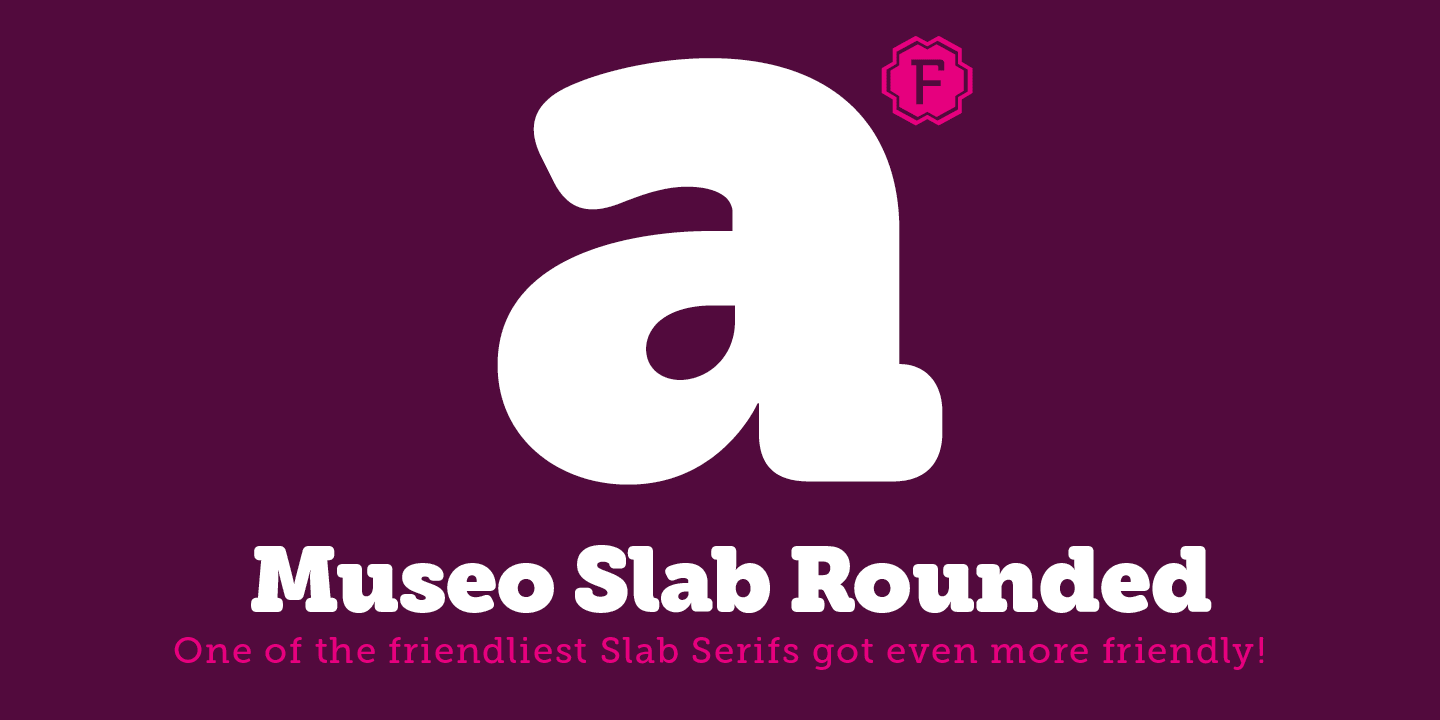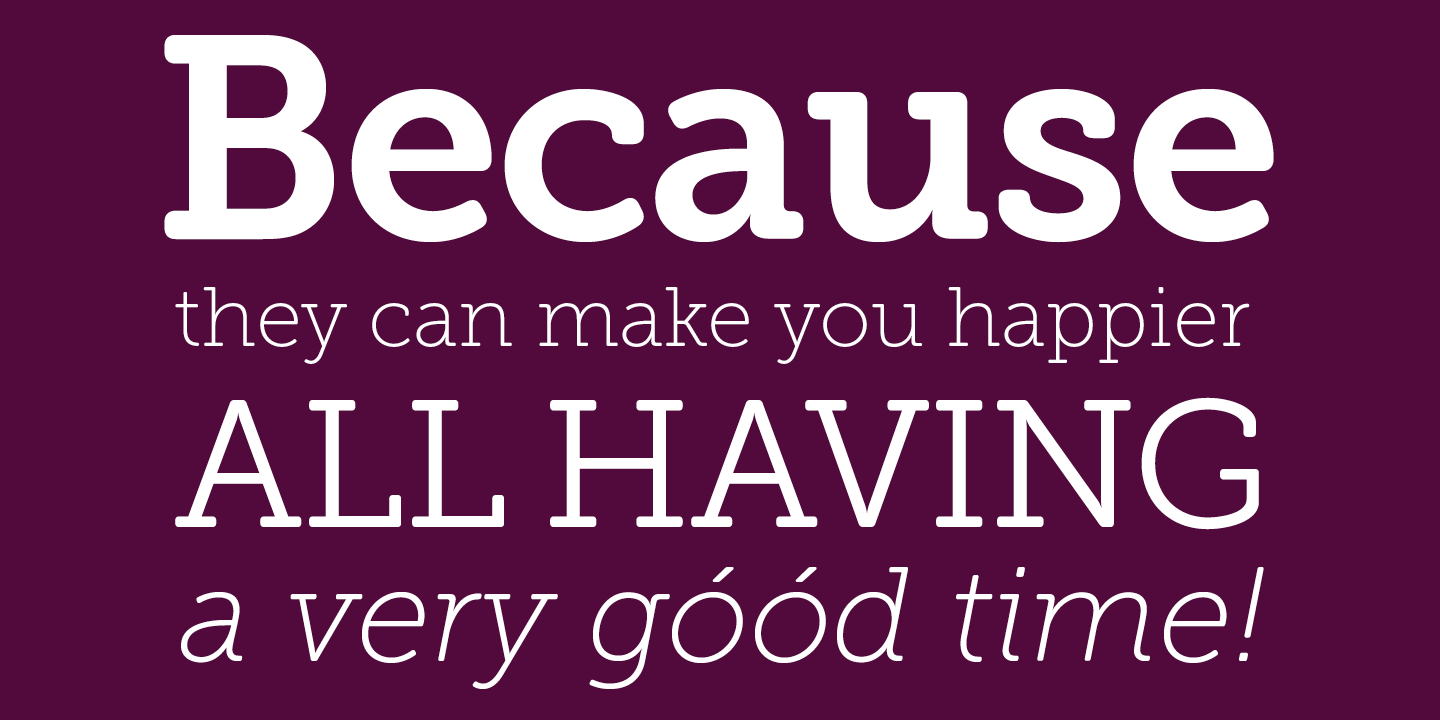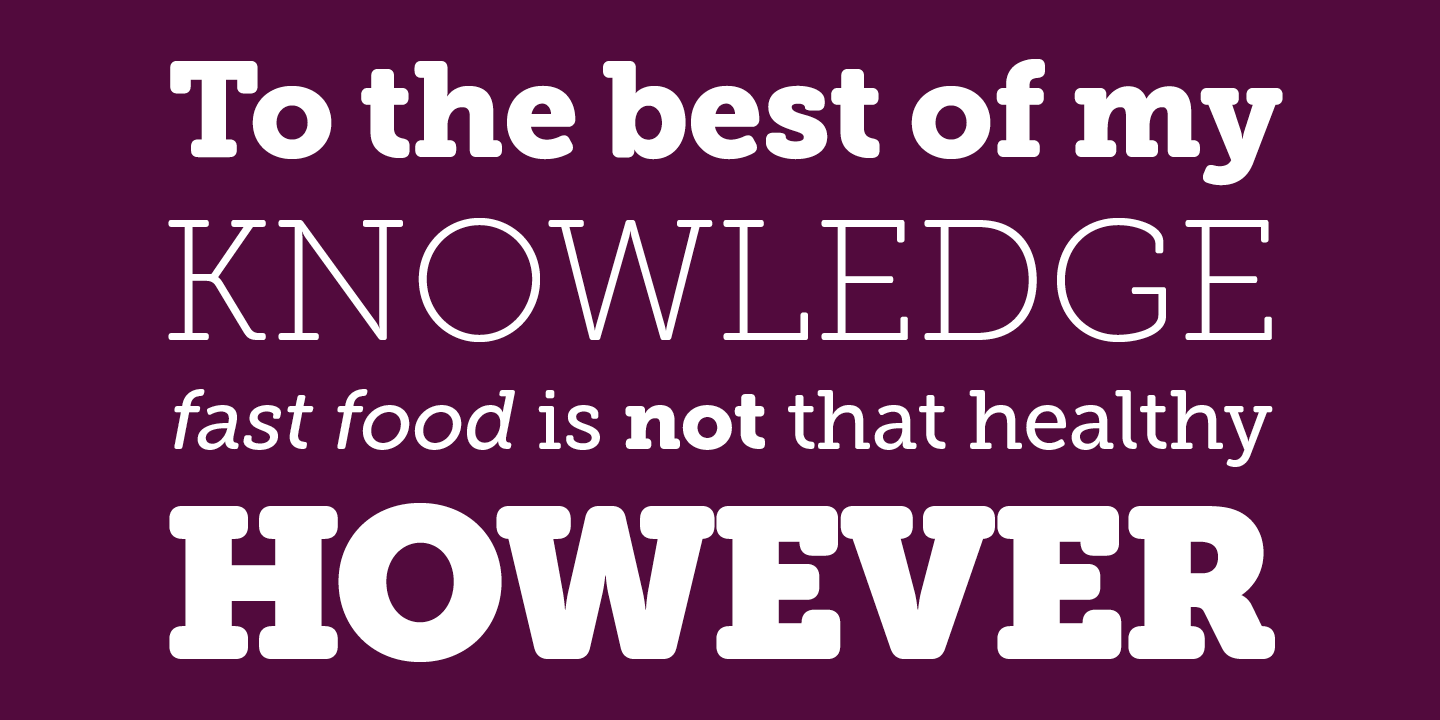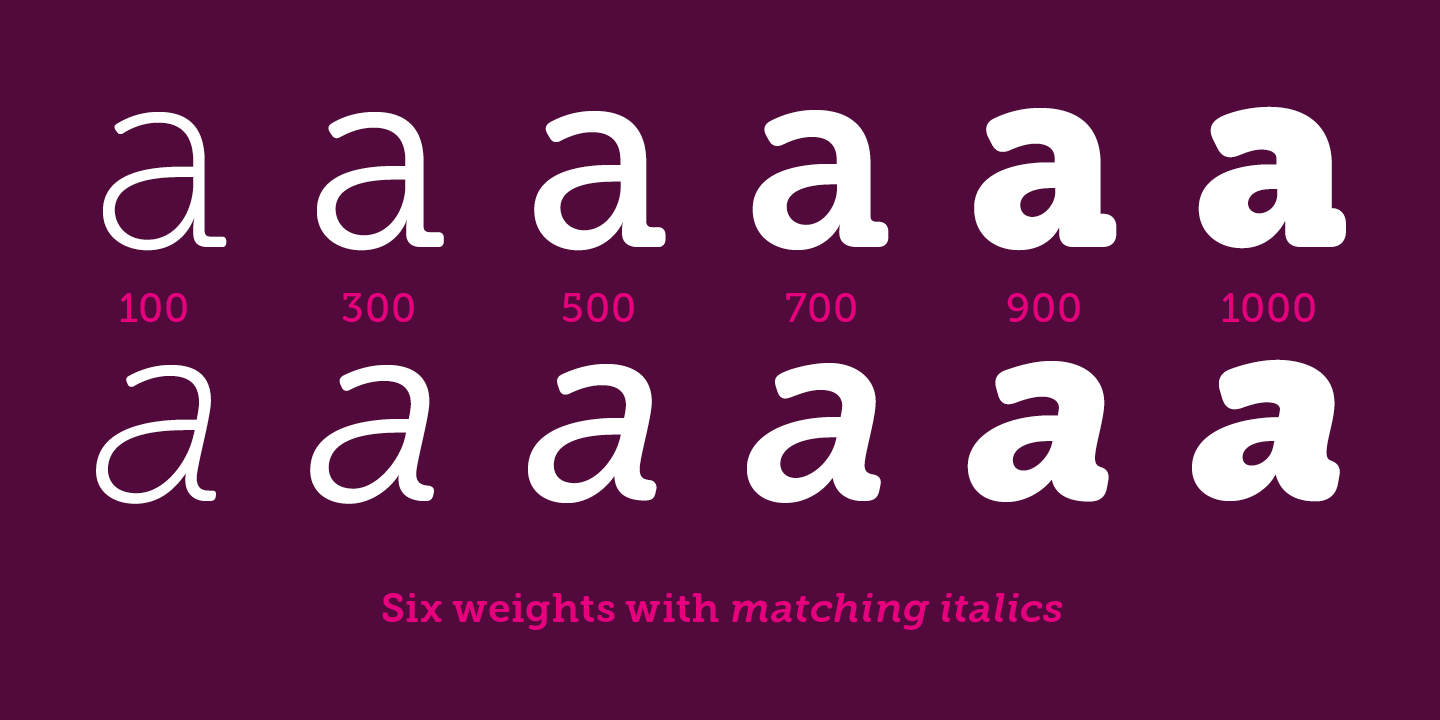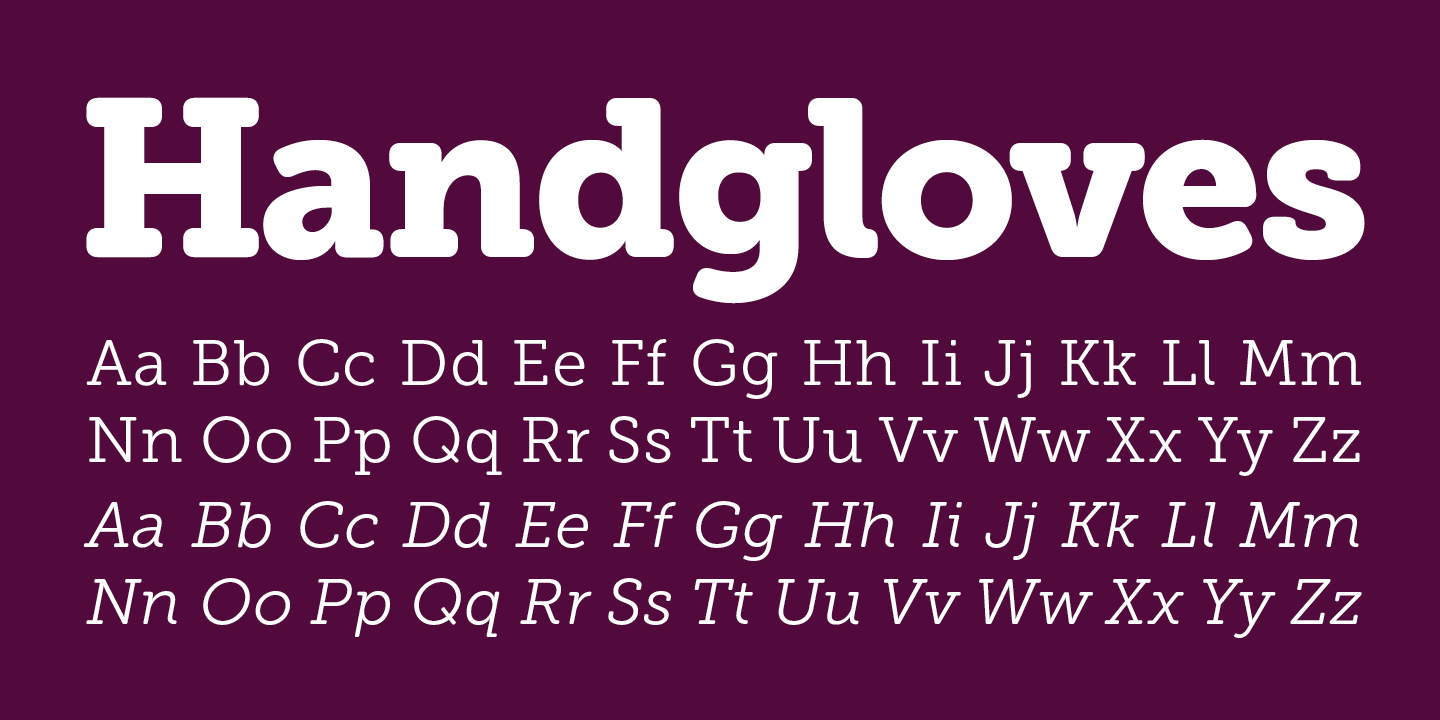
Museo Slab Rounded
Buy NowOne of the most friendly Slab Serifs just got even more friendly. Museo Slab Rounded is the latest addition to the Museo font family. It has updated letterforms, spacing and kerning. It can perfectly be combined with Museo Sans Rounded. It comes in six weights with italics, that are not just slanted regulars. Key characters have been changed to give the italics more flow.